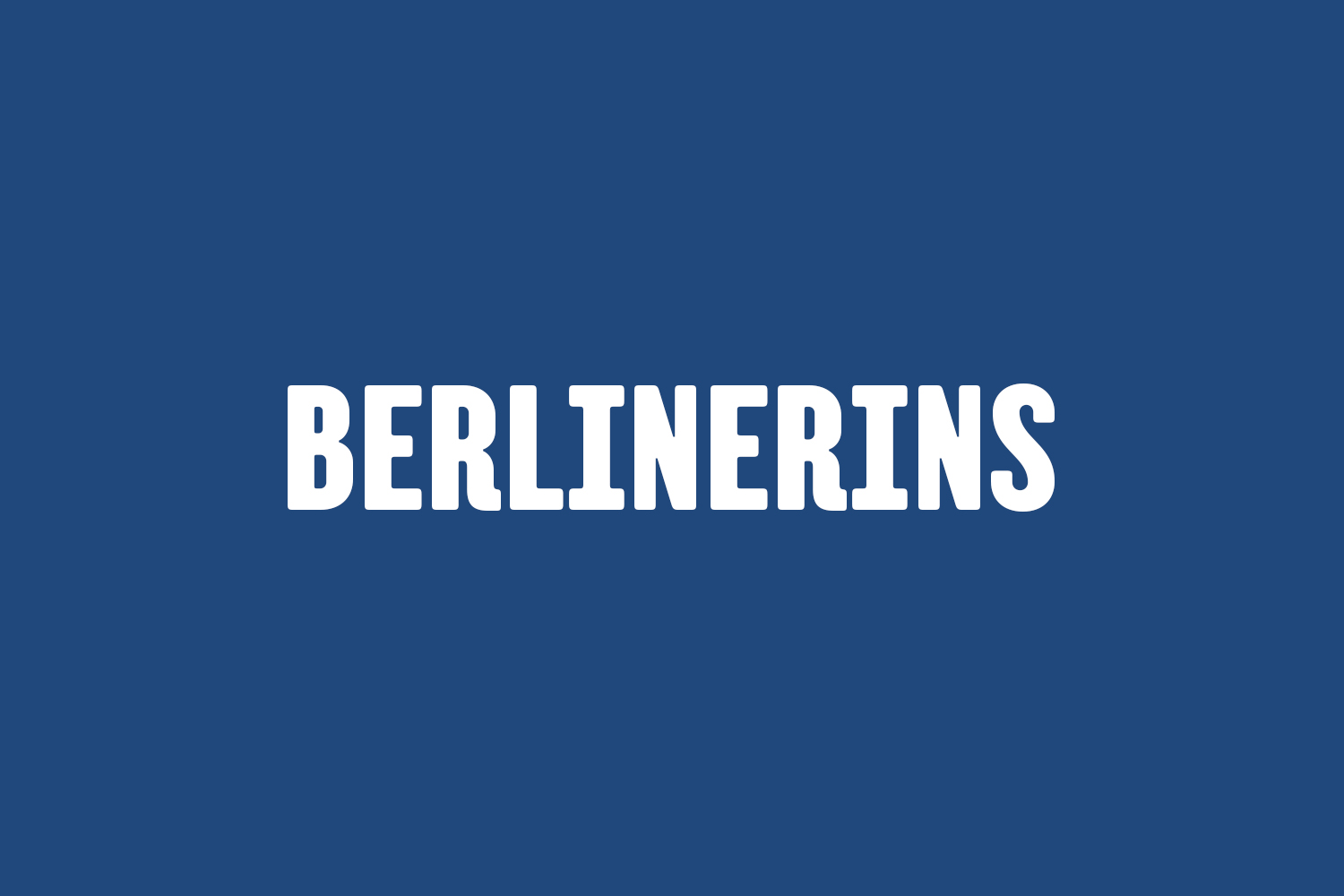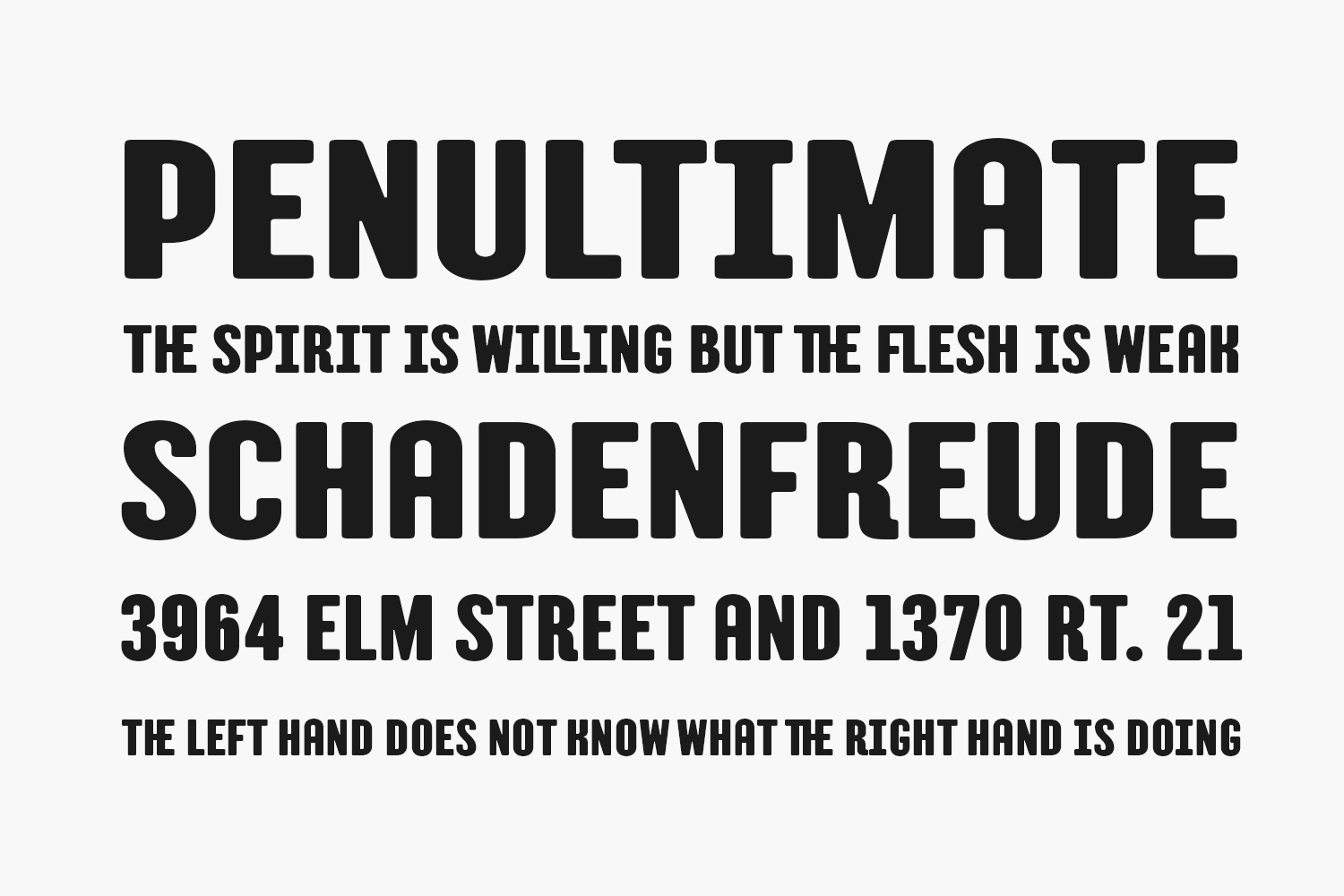
Looking for a unique and stylish font that pays tribute to the city of Berlin? Look no further than Berlinerins Free Font! This contrasting pair of typefaces is the perfect blend of historicity and modernity, just like the city itself. The elegant script represents the modern side of Berlin, while the wood-type poster-inspired sans-serif adds a touch of history to the design. The idea for this project came from a meeting with calligrapher Evgenia Pestova, who shared her contemporary perspective on calligraphy and the city with the designers. The wood-type sans-serif was added after another colleague’s fascinating story about the vintage side of Berlin. With its blend of old and new, Berlinerins is the perfect font for a wide range of design projects, from logos and branding to social media posts and product packaging. So why wait? Download Berlinerins Free Font today and add a touch of Berlin’s unique style to your designs!